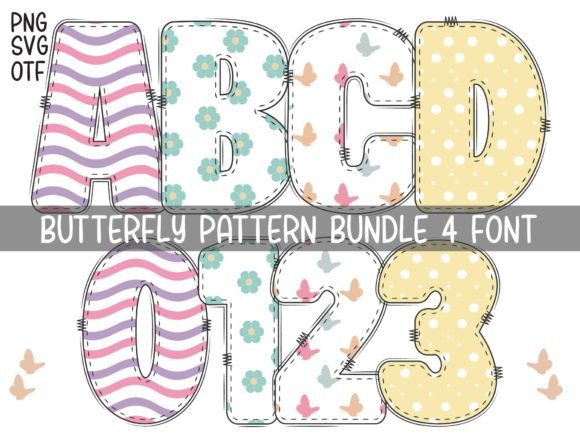
Journey into a world of enchanting creativity with "Butterfly Pattern Font"-the ultimate color font that captivates hearts and ignites imaginations. Inspired by the delicate beauty of butterflies, this font dances across your screen with a vibrant array of colors and intricate patterns, adding a touch of magic to every word.
Picture this: your designs transformed into breathtaking works of art, adorned with the whimsical charm of "Butterfly Pattern". Let your imagination soar as you create enchanting greeting cards that carry your heartfelt messages with a sprinkle of joy. Envision children's books brought to life, their pages filled with vibrant characters and whimsical illustrations, captivating young minds with every turn. Unleash your creativity and design captivating product packaging that dances off the shelves, leaving customers spellbound by its unique allure.
With "Butterfly Pattern", the possibilities are endless. Its playful design lends itself perfectly to a multitude of projects, from social media posts that pop with personality to eye-catching logos that command attention. Imagine your brand standing out from the crowd, adorned with a font that exudes warmth and affection. Let your designs take flight and create a visual symphony that resonates with your audience.
Unleash the power of color and typography as you weave your creative magic with "Butterfly Pattern". Embrace the beauty of uniqueness and let your designs bloom with enchanting charm. Experience the joy of creating projects that touch hearts and leave a lasting impression.